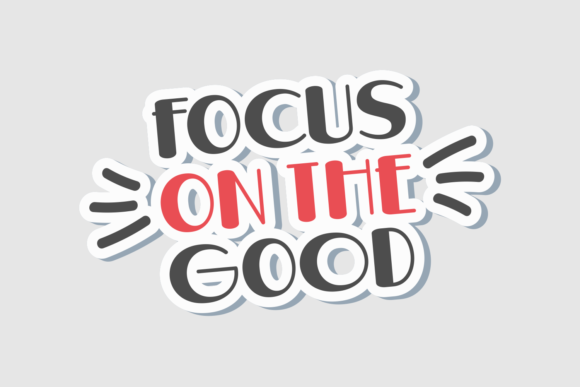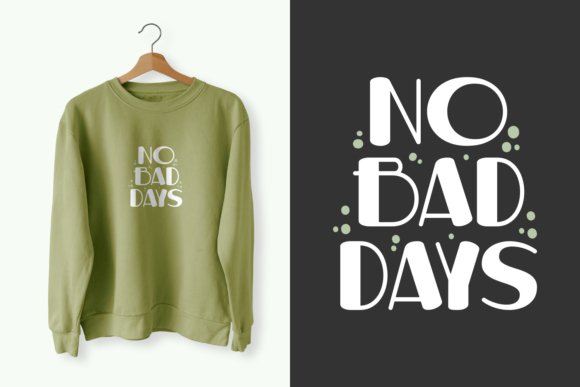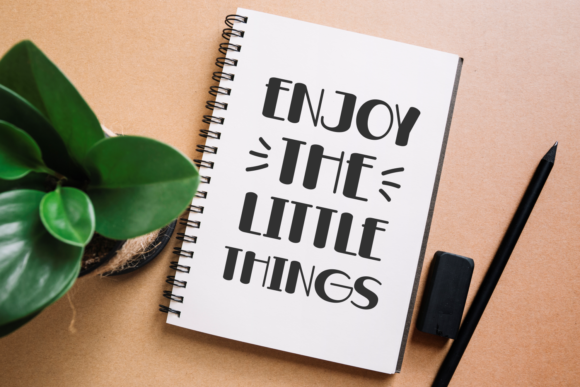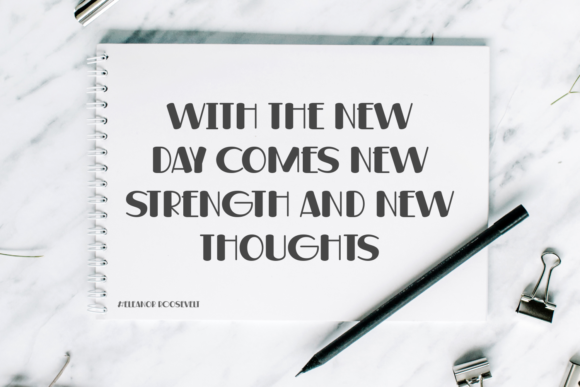
Unleashing the Joy of Design: Big Cherry Font
Remember that moment when you stumbled upon the perfect font for your project, and everything just clicked? You envisioned the entire design, from the bold headlines to the playful typography. For designers, finding the right font can be a game-changer, and that’s exactly what Big Cherry Font offers.
Big Cherry Font is a delightful display font that exudes warmth and friendliness. Its purpose is to bring a smile to the faces of your audience, making it perfect for cartoon-related designs, children’s games, quotes, titles, and more. Whether you’re working on a book cover, poster, or brand name, Big Cherry Font is a valuable addition to your design toolkit.
Big Cherry Font Key Features
- Font Family: Big Cherry Font is a sans-serif typeface designed for readability and versatility.
- Unique Characteristics: Big Cherry Font features a unique blend of modern and vintage elements, making it an excellent choice for creative projects and branding.
Big Cherry Font Review
Overall, I have mixed feelings about Big Cherry Font. While it has some great qualities, there are some limitations that might make it less desirable for certain projects.
- The font’s bold and playful personality makes it perfect for headings and titles.
- The varied letterforms give it a friendly, approachable feel that’s great for brand identities and packaging.
- The font is highly legible, even at small sizes, making it suitable for digital applications.
- The font’s quirky nature can sometimes make it feel inconsistent or unpredictable.
- The lack of a true italic version can limit its use in certain contexts, such as academic or formal writing.
- The font may not be suitable for long blocks of text, as its playful feel can become overwhelming.
Overall, Big Cherry Font is a great choice for projects that require a bold, attention-grabbing font. However, it may not be the best fit for more formal or technical writing. With some careful consideration and planning, it can be a valuable addition to any designer’s toolkit.
Tips for Getting the Most Out of Big Cherry Font
Use Big Cherry Font for headings and titles to create a bold and eye-catching effect.
Pair Big Cherry Font with a clean and simple font for body text to create a visually appealing contrast.
Experiment with different font sizes and colors to create a unique and customized look.
Big Cherry Font is ideal for:
Creating bold and eye-catching headings and titles.
Designing posters, flyers, and social media graphics.
Adding a touch of elegance and sophistication to your designs.
Alternatives to Big Cherry Font
Cream Sans
Cream Sans is a modern sans-serif font that offers a clean and elegant look. It’s ideal for use in digital products, corporate identities, and editorial content. Cream Sans is a great alternative to Big Cherry Font as it provides a similar friendly and approachable feel, but with a more contemporary twist.
Comparison: While Big Cherry Font has a more rustic and vintage feel, Cream Sans is more polished and modern. Cream Sans is also more versatile and can be used in a wider range of applications.
Playfair Display is a luxurious and elegant script font that’s perfect for use in high-end branding, luxury goods, and fine dining. It’s ideal for creating a sense of sophistication and refinement. Playfair Display is a great alternative to Big Cherry Font as it offers a similar sense of luxury and elegance, but with a more classic and timeless feel.